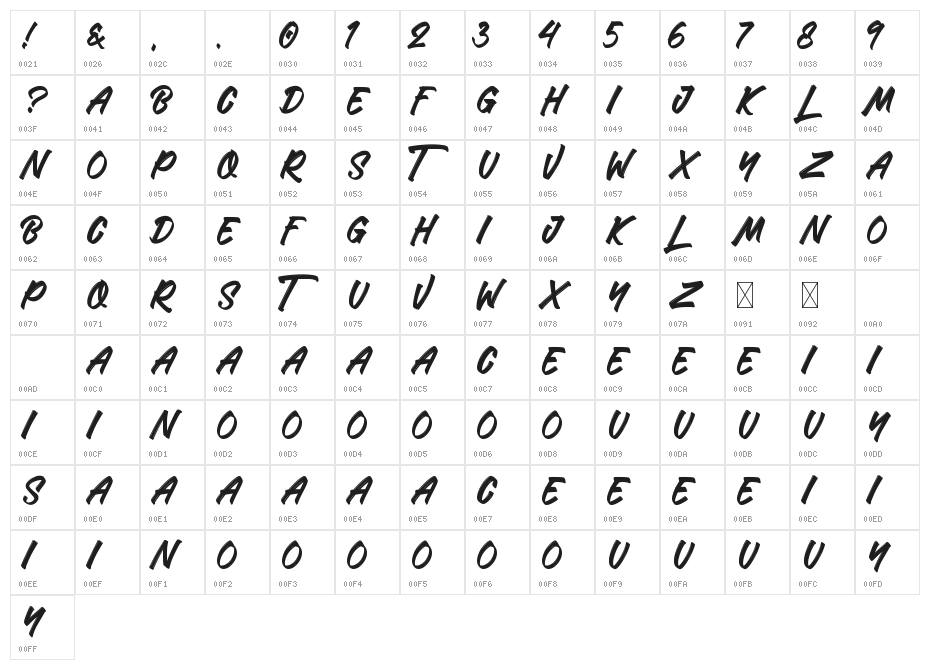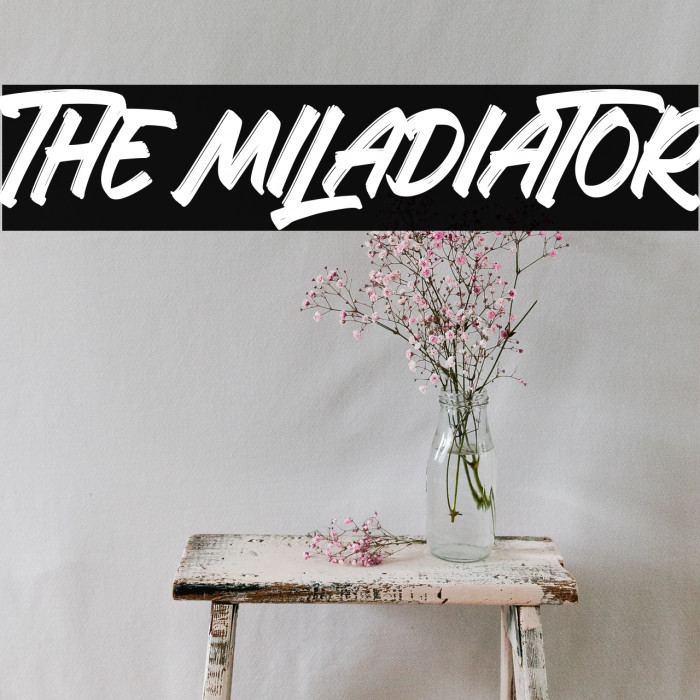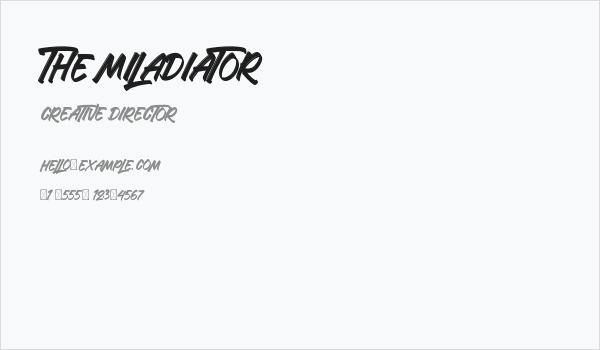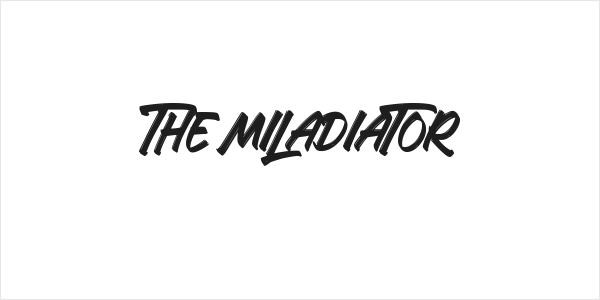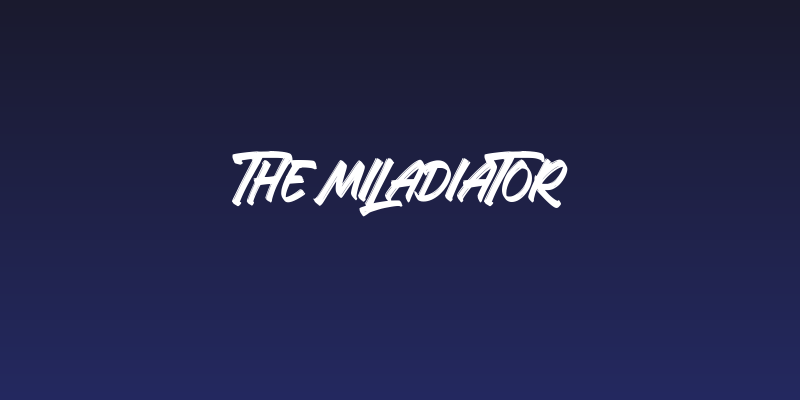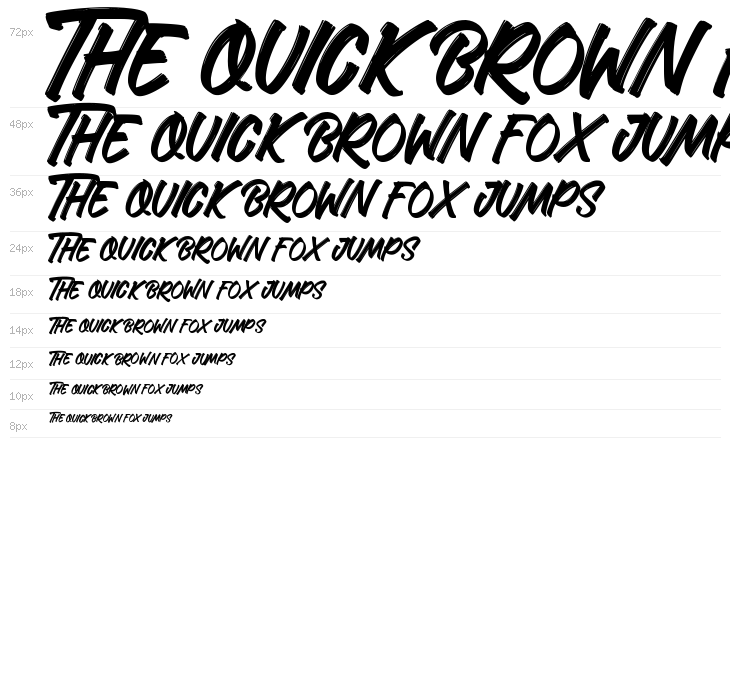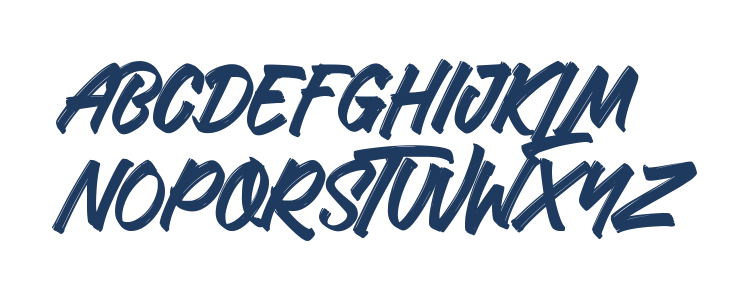
The Miladiator Font
The Miladiator Description
This font exudes a bold and dynamic energy, characterized by its thick, brush-like strokes that give it a handwritten appearance. The letters are slightly slanted, adding a sense of movement and fluidity. The uppercase and lowercase letters maintain a consistent style, with the uppercase being more pronounced. The numbers and special characters are crafted with the same boldness, ensuring uniformity across all characters. This font is ideal for making a strong visual impact, with its high contrast and expressive style.
| Use Case | Logos, Headlines, Posters |
| Proposed Projects | Perfect for branding, posters, and any project needing a bold, artistic touch. |